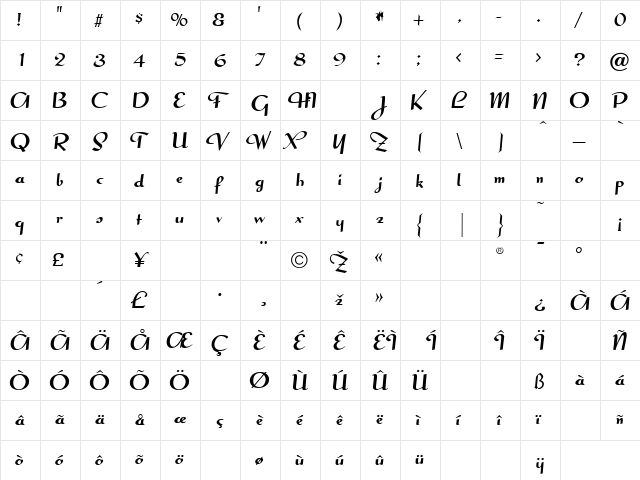
Candlemas Regular
Design Context for Candlemas Typeface
Candlemas is a composed and adaptable typeface that performs quietly and consistently across a wide range of design contexts.